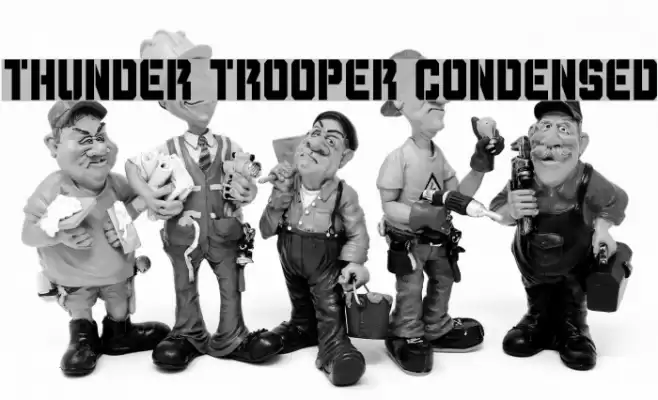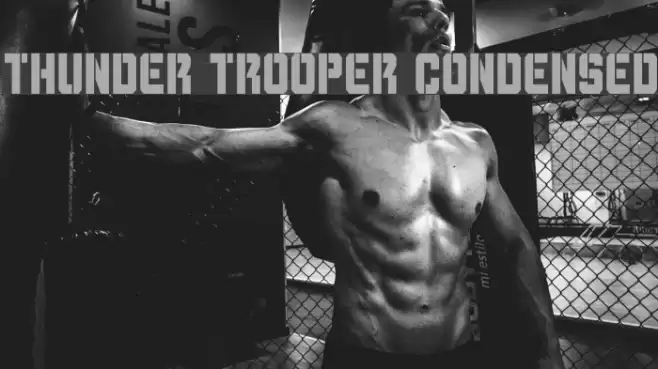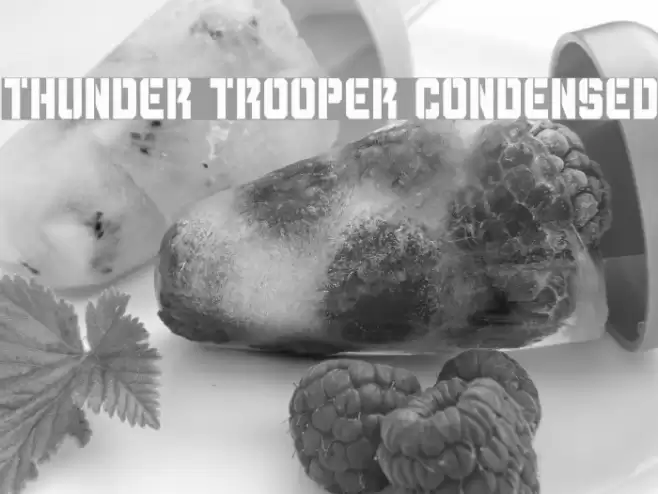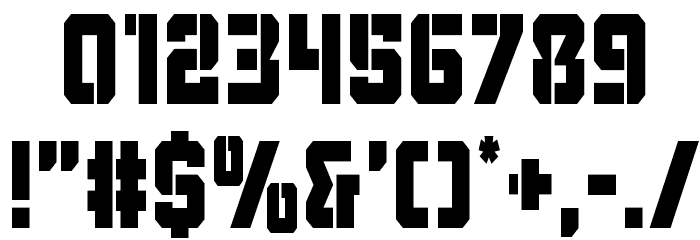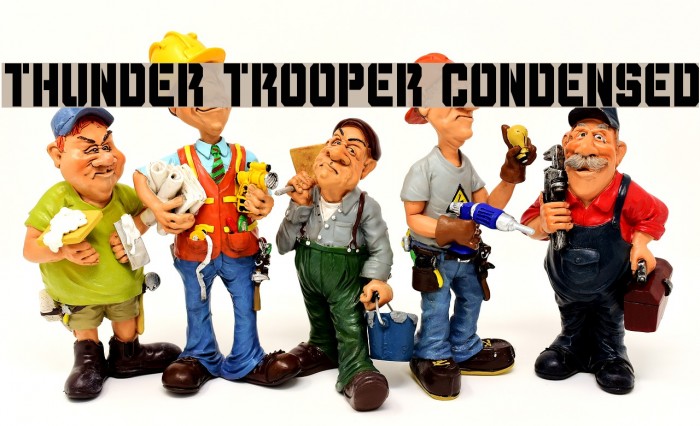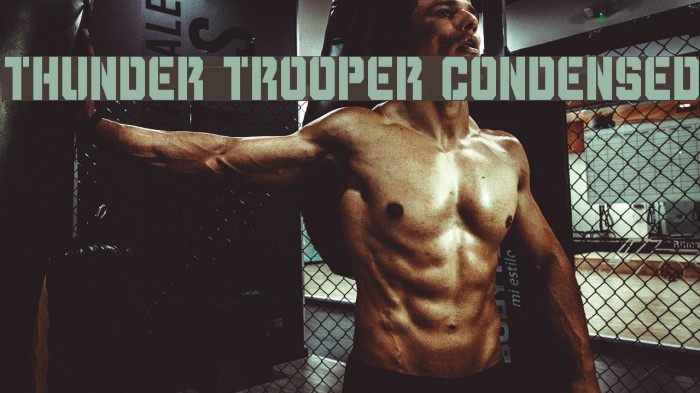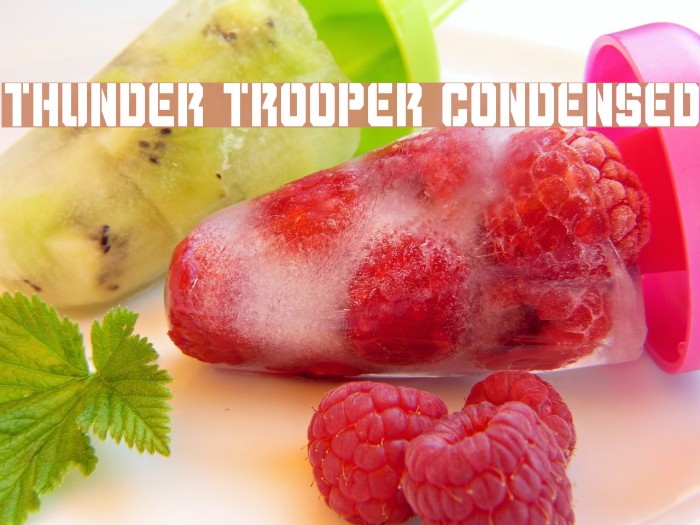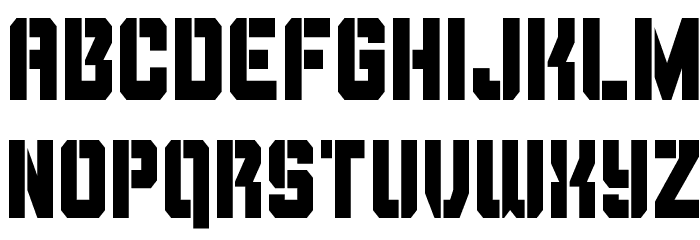
Thunder Trooper Condensed Font
Thunder Trooper Condensed Description
This font features a bold, geometric design with a condensed structure. The characters are blocky and angular, giving a futuristic and industrial feel. The uppercase and lowercase letters maintain a consistent style, with sharp edges and a uniform thickness throughout. The numbers and special characters follow the same design principles, ensuring a cohesive look across all glyphs. This font is highly legible and makes a strong visual impact, ideal for attention-grabbing headlines and designs.
A bold, geometric, and condensed font with a futuristic feel from Uncategorized fonts.
- Proposed Projects: Ideal for sci-fi themed posters, video game titles, branding for tech companies, and any project requiring a modern, industrial aesthetic.